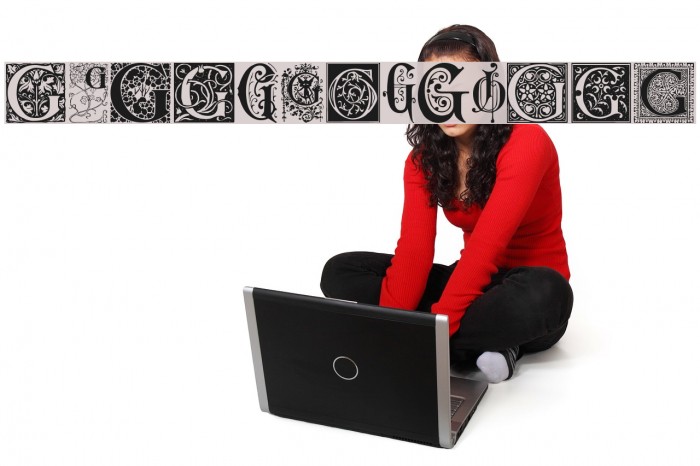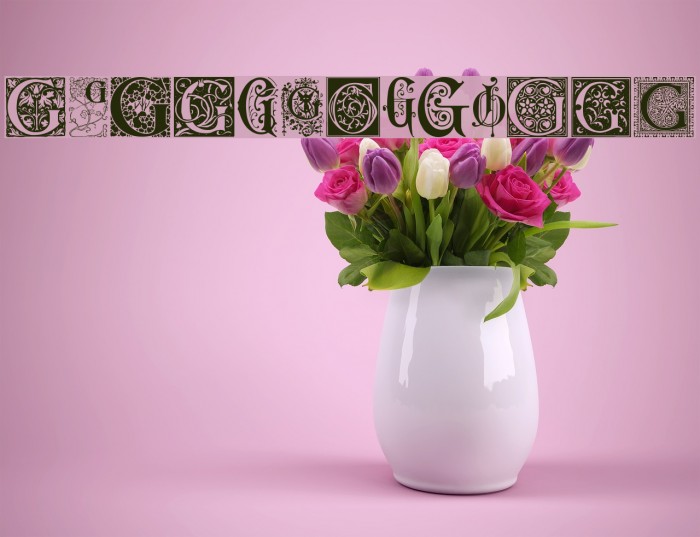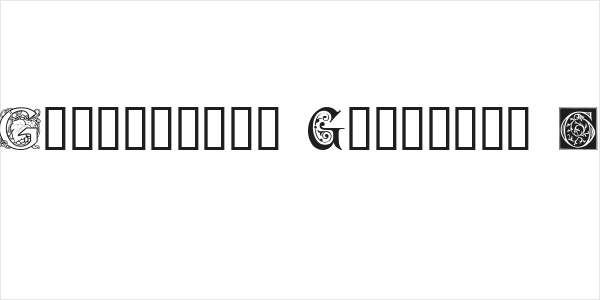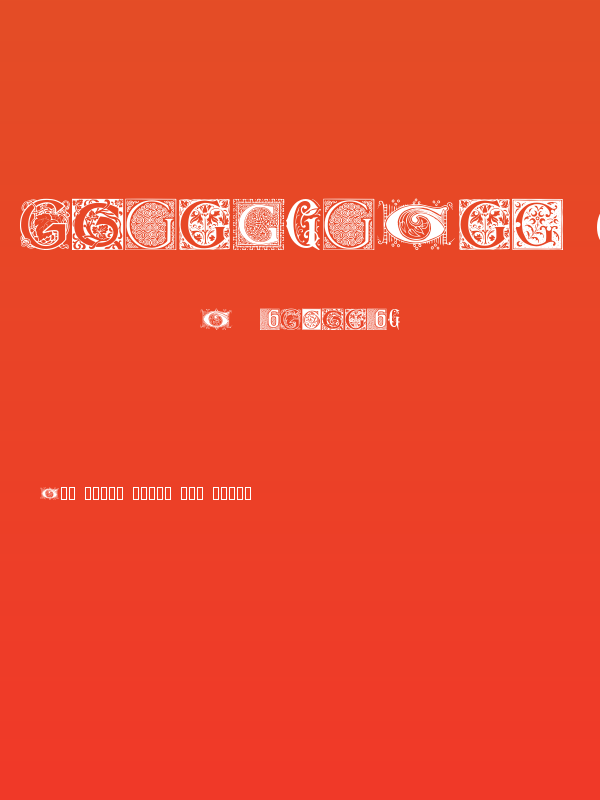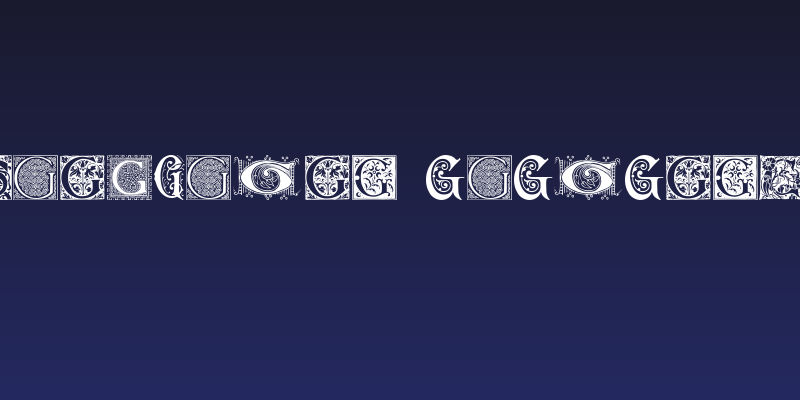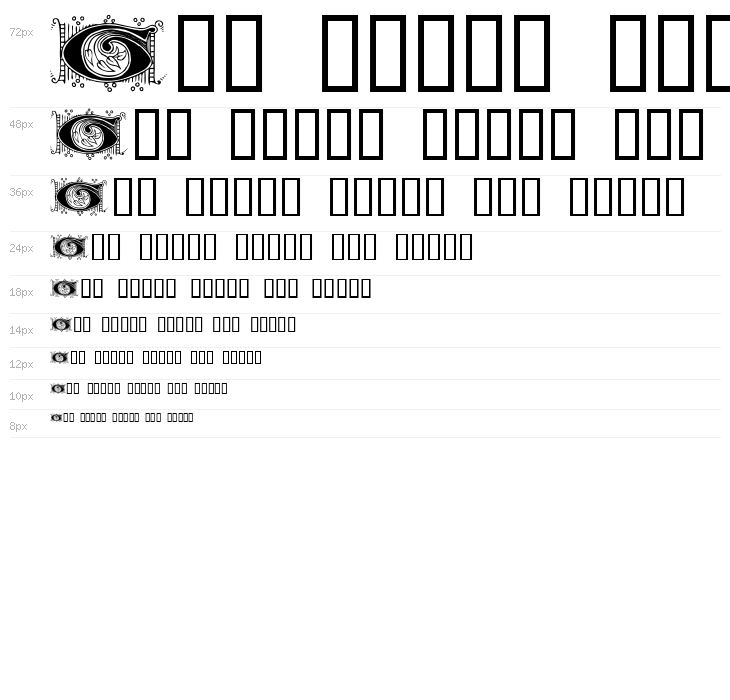
Ornamental Initials G Font
Ornamental Initials G Description
This font features highly decorative and intricate initials, each letter enclosed within a square or rectangular frame. The design is reminiscent of medieval manuscripts, with elaborate flourishes and ornamental details that give each character a unique and artistic appearance. The letters are bold and striking, making them ideal for use in projects that require a touch of elegance and historical flair. The intricate patterns within each letter add depth and complexity, making this font suitable for decorative purposes where visual impact is desired.
| Use Case | Logos, Headlines, Decorative elements |
| Proposed Projects | Ideal for use in invitations, book covers, certificates, and any project requiring a historical or elegant touch. |